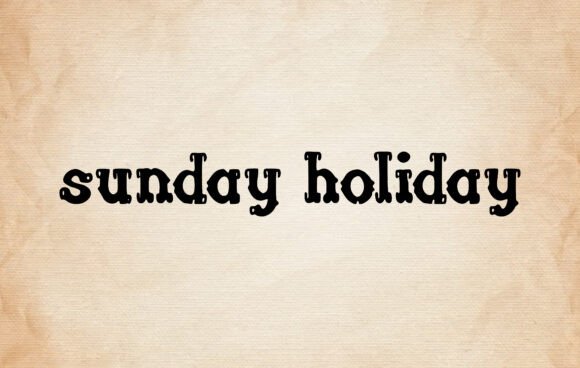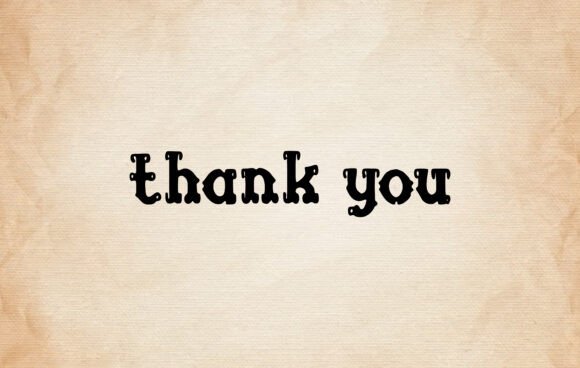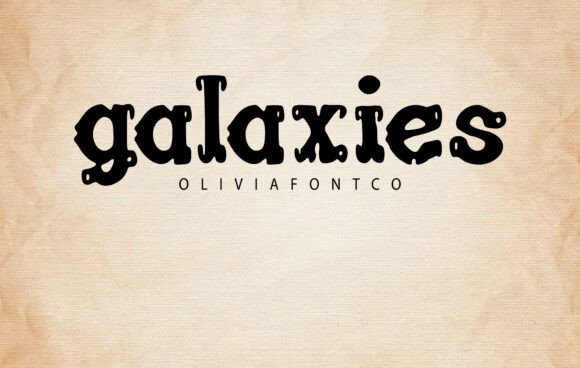
The Ultimate Design Game-Changer: Galaxies Font
Have you ever been in the middle of a design project, and suddenly, you’re stuck on finding the perfect font? I recall a particularly frustrating experience while working on a wedding invitation design. My client wanted a font that was both elegant and playful, but I just couldn’t seem to find the right fit. That’s when I stumbled upon Galaxies Font, and let me tell you, it was a total game-changer! 💫
So, what makes Galaxies Font so special? Here are a few things I love about it:
- ✨ Legibility: This font is incredibly easy to read, making it perfect for both title and body text.
- ✅ Versatility: Galaxies Font looks great on a variety of design materials, from magazine headlines to t-shirts, social media posts, and even wedding invitations.
- 💫 Creative freedom: With its unique and modern design, this font gives you the freedom to experiment with different styles and ideas.
Of course, no font is perfect, and there are a few small quirks to be aware of:
- 🤔 Limited language support: Galaxies Font may not support all languages, so be sure to check the character set before using it for a project.
- ⚠️ Not ideal for body text: While it’s legible, Galaxies Font is better suited for titles and headings. For longer blocks of text, you may want to choose a more traditional font.
- Experiment with different styles, such as OpenType features and glyphs, to add some extra flair to your design.
- Take advantage of stylistic alternates and swashes to add some extra personality to your design.
The Story Behind Galaxies Font
Galaxies Font was designed by a team of creatives who wanted to create a font that was out of this world (pun intended!). Inspired by the stars and galaxies of our universe, they crafted a font that’s both modern and timeless. With its unique design and versatility, Galaxies Font is sure to become a favorite among designers and crafters.